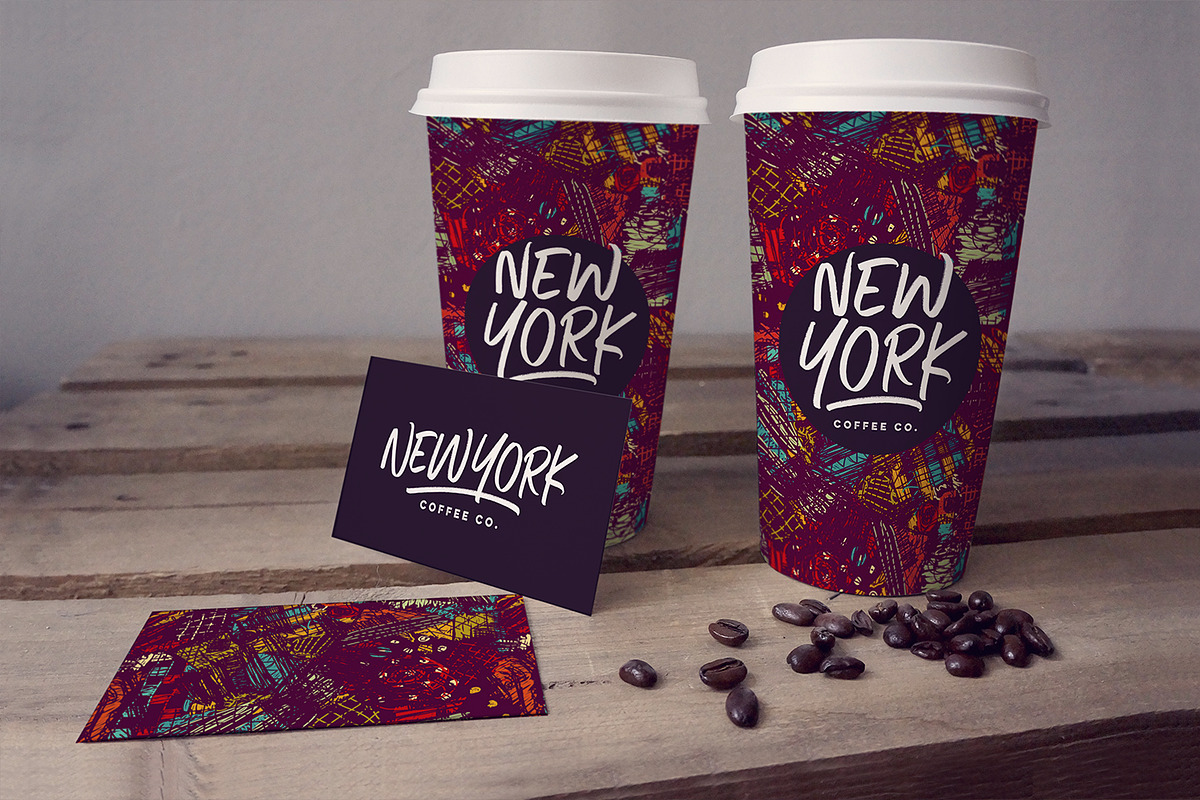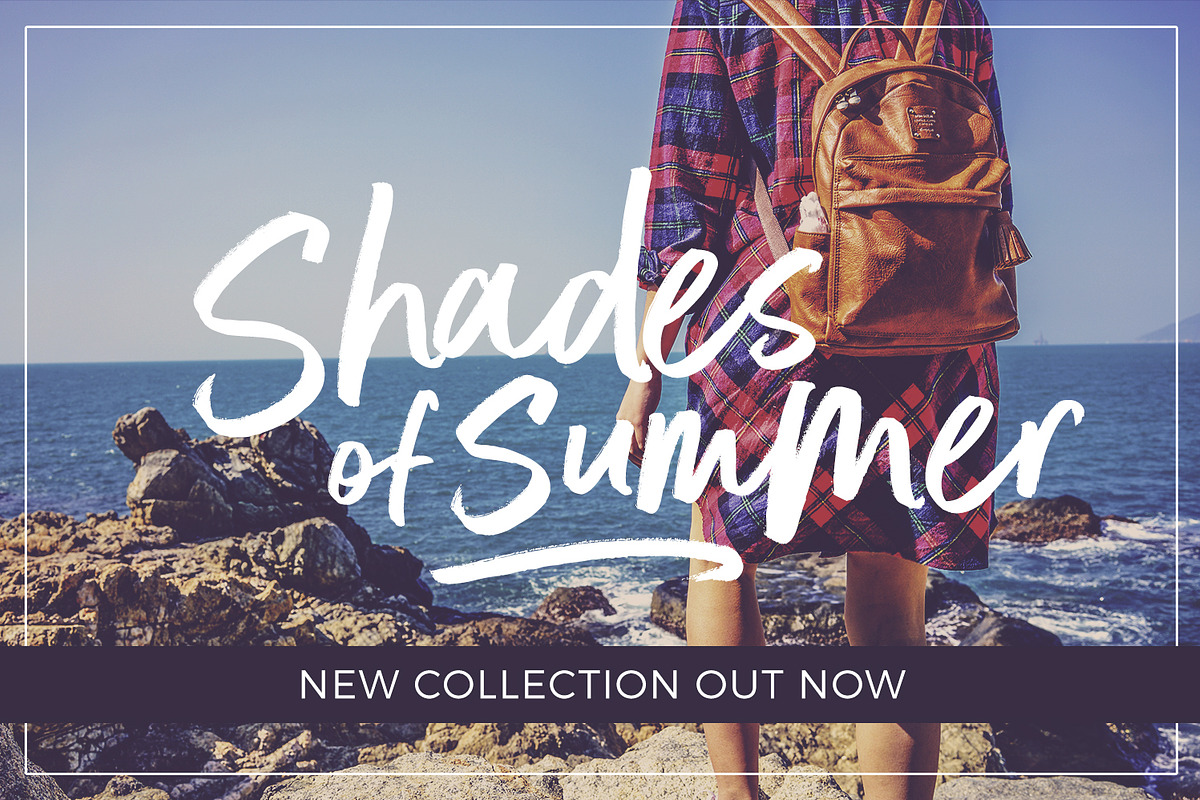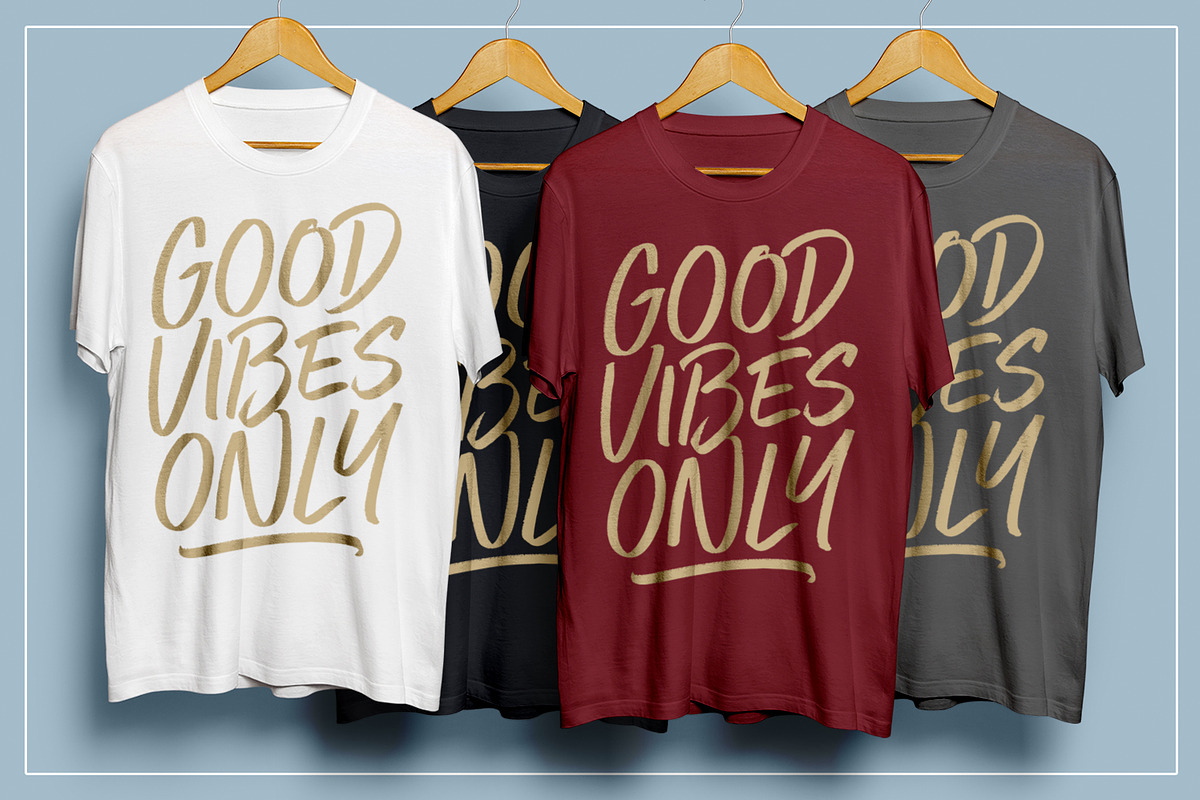
Better Times Brush Font
Better Times Brush Font by Sam Parrett is a font selected for branding, posters, packaging, typography.
- Oh, and not to mention it looks great in both all-caps as well as lowercase - all of this together providing you with a huge range of layout
- Better Times • A handwritten brush font containing upper & lowercase characters, numerals and a large range of punctuation.
- Better Times Alt • This is a second version of Better Times, with a completely new set of lowercase and uppercase characters.
Why Better Times Brush Font is worth a look
Better Times Brush Font by Sam Parrett fits naturally into Branding, posters, packaging, typography.